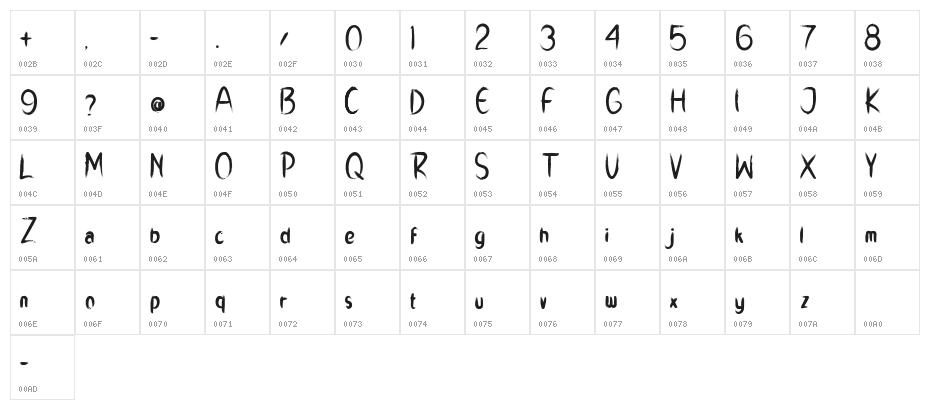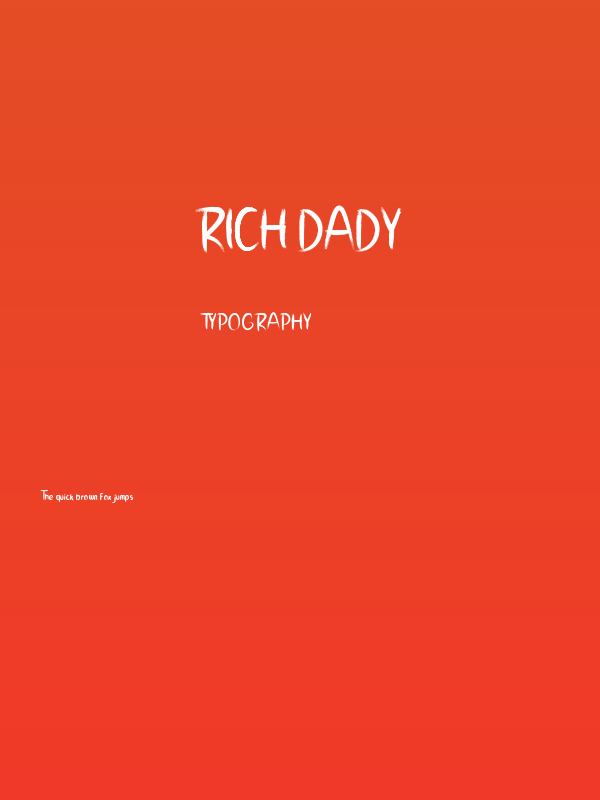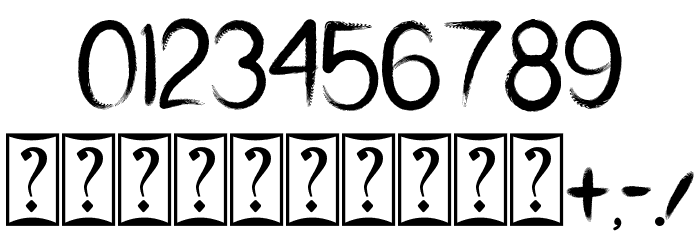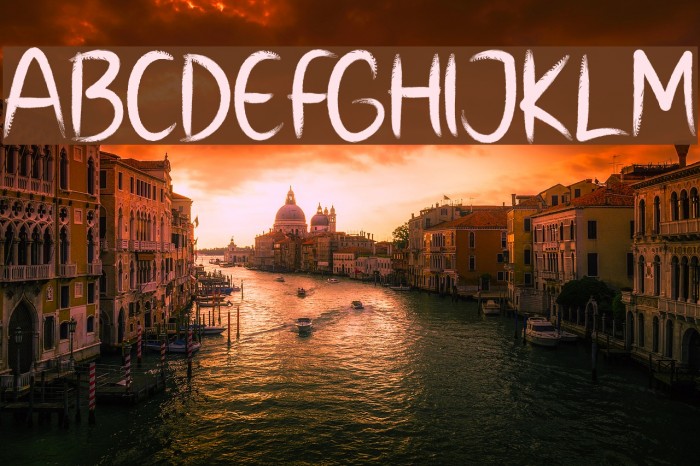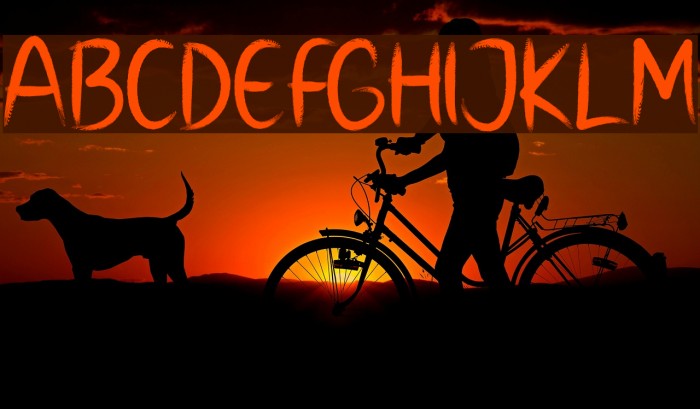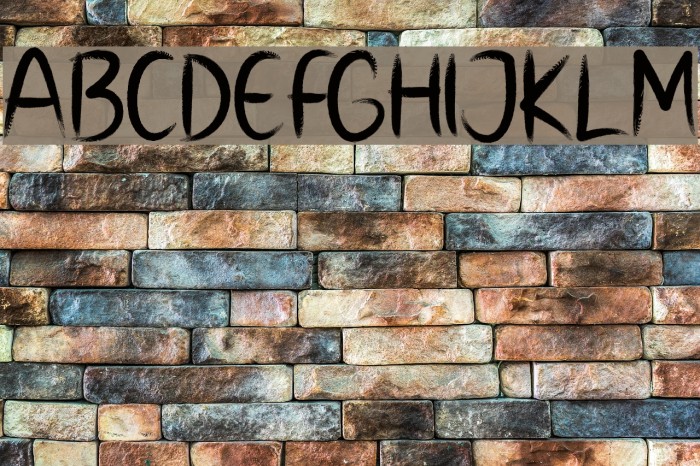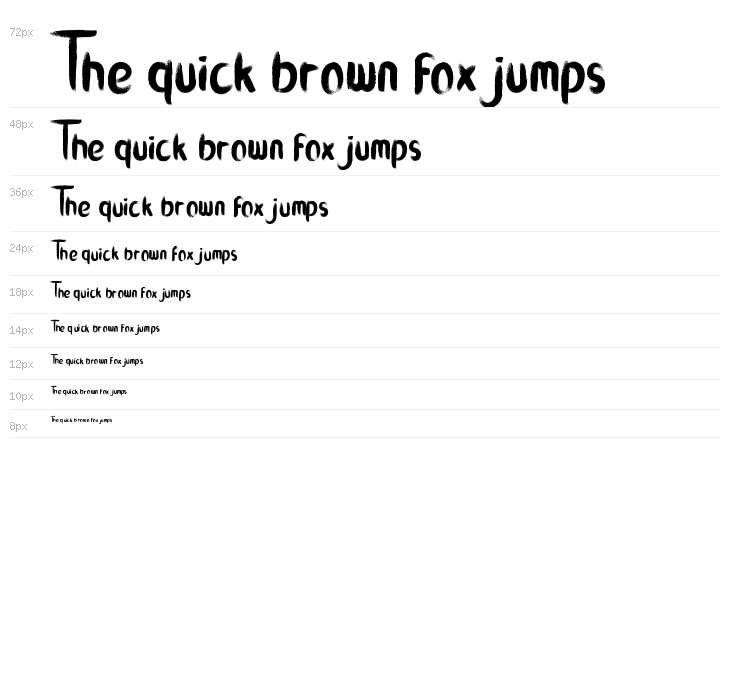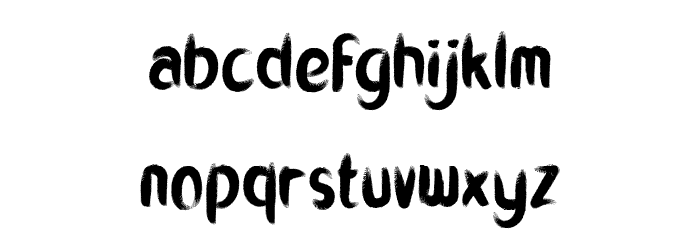
RICH DADY Font
RICH DADY Description
This font features a bold and expressive brush style, characterized by its dynamic and energetic strokes. The letters have a hand-painted appearance, with varying thickness that adds a sense of movement and fluidity. The uppercase and lowercase letters maintain a consistent style, with rounded edges and a slightly irregular baseline that enhances its artistic flair. The numerals are equally bold, ensuring readability while maintaining the font's unique aesthetic. Special characters are included, matching the overall brushstroke theme, making it versatile for creative projects.
| Proposed Projects | Ideal for artistic projects, branding, posters, and creative headlines. |